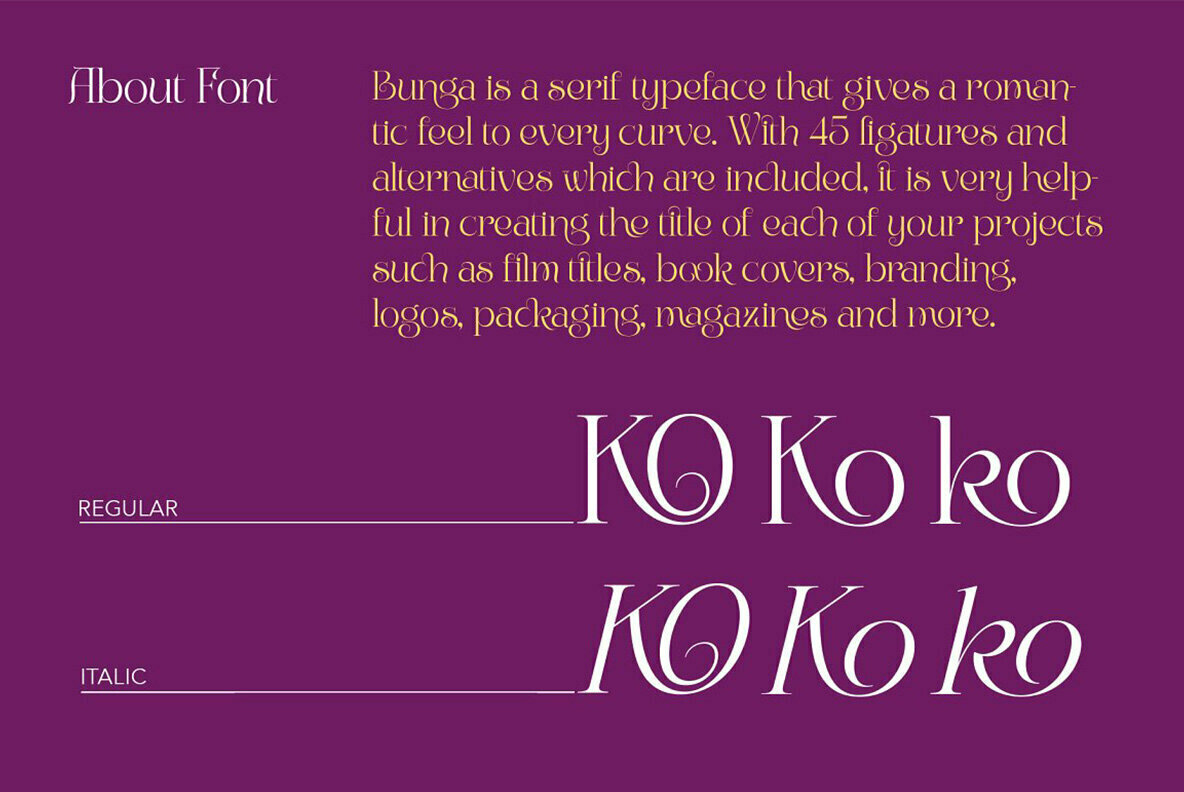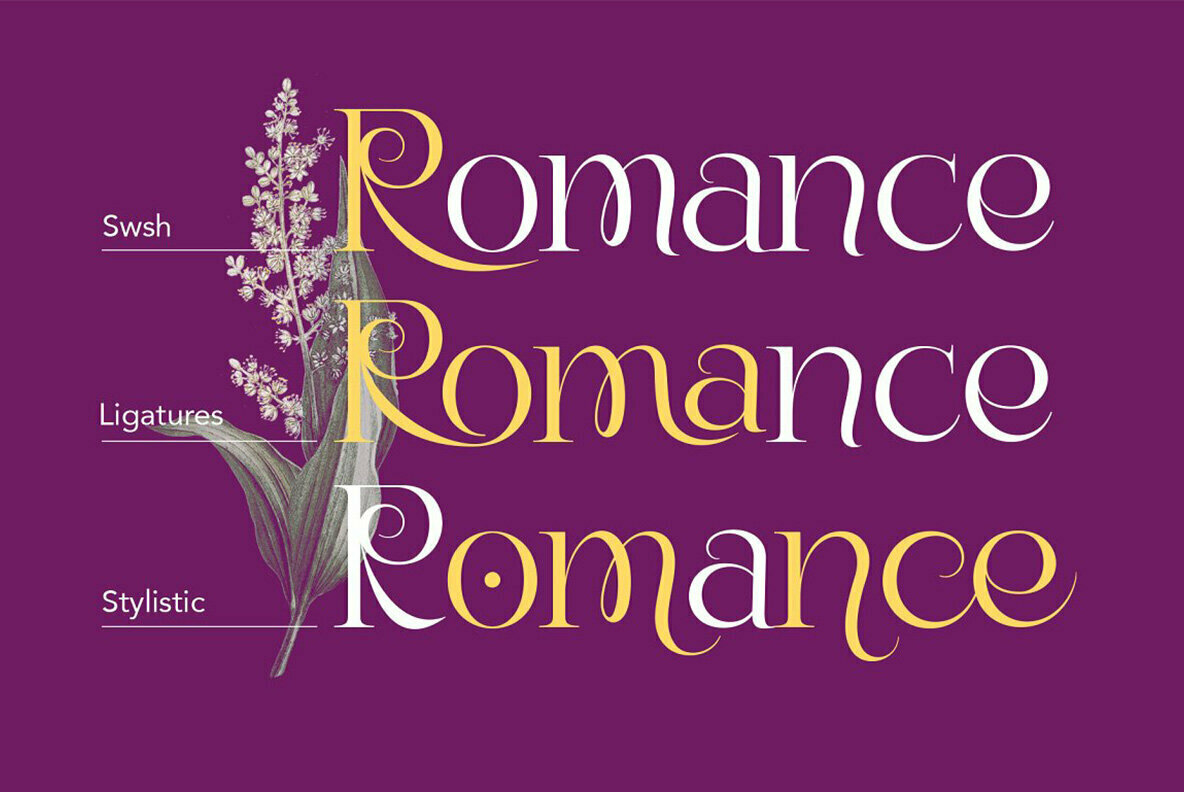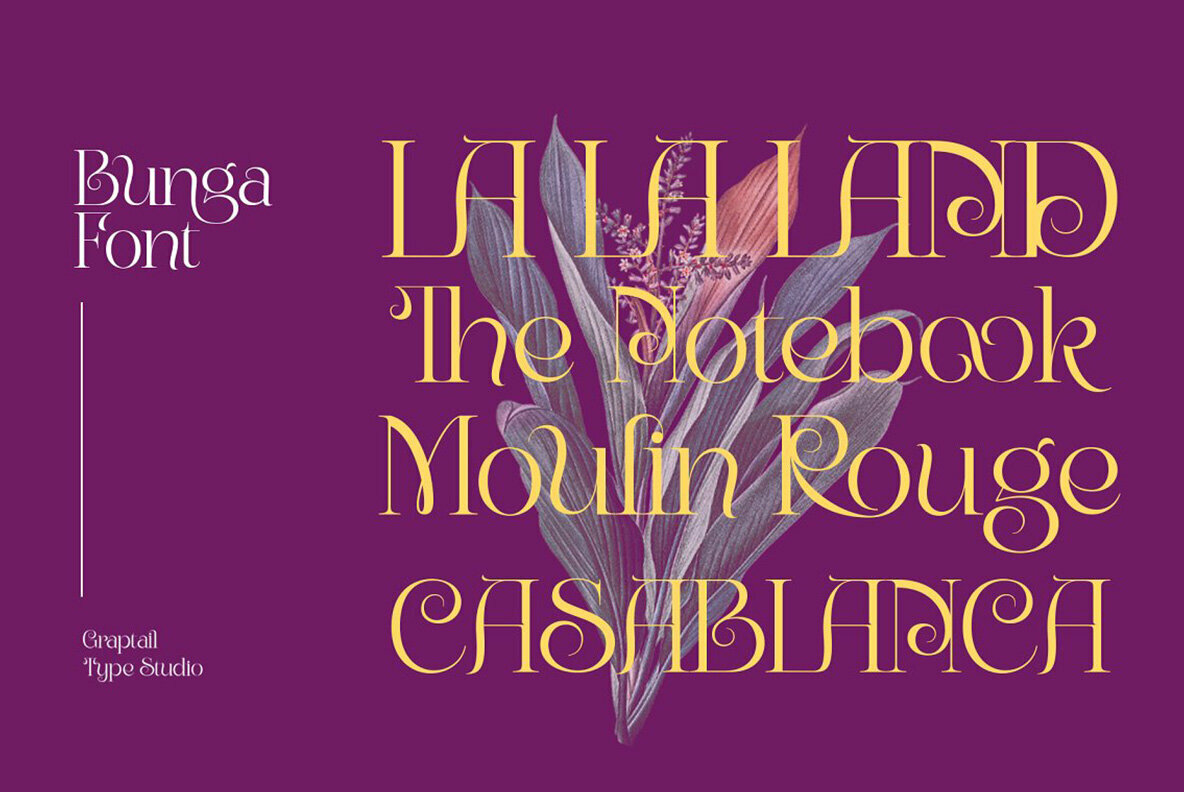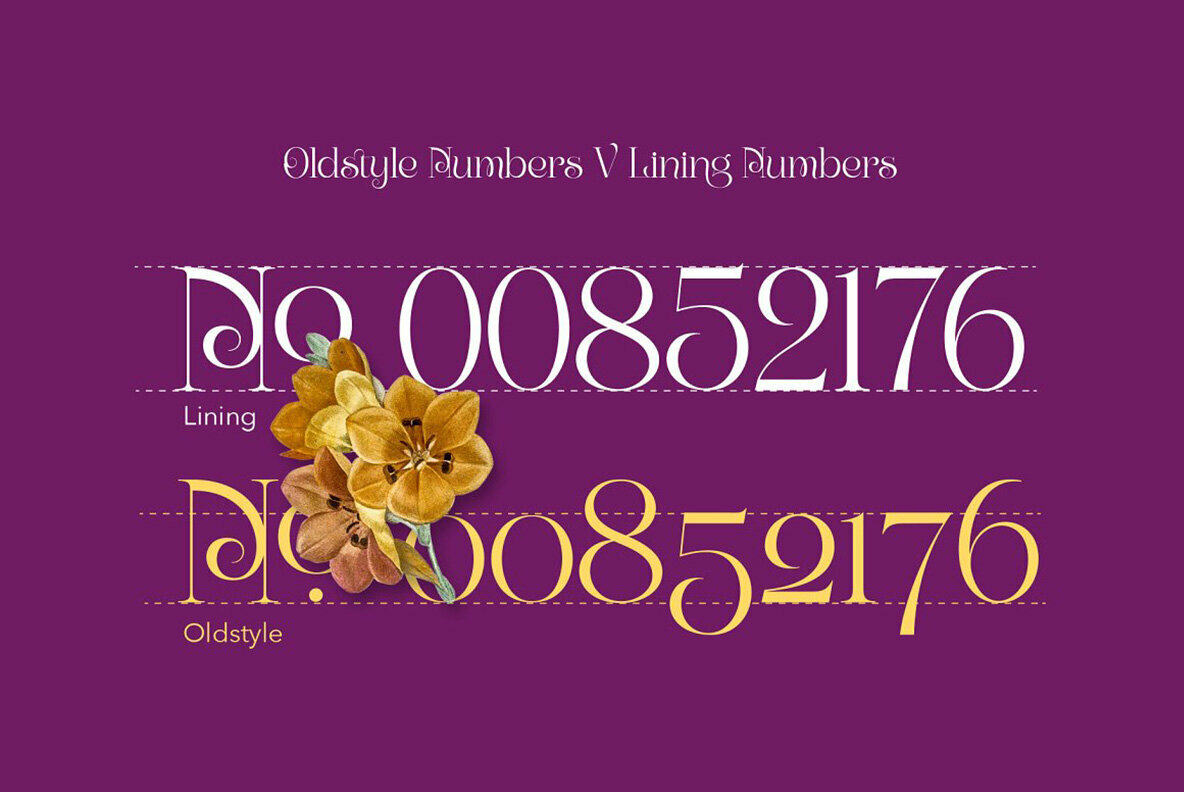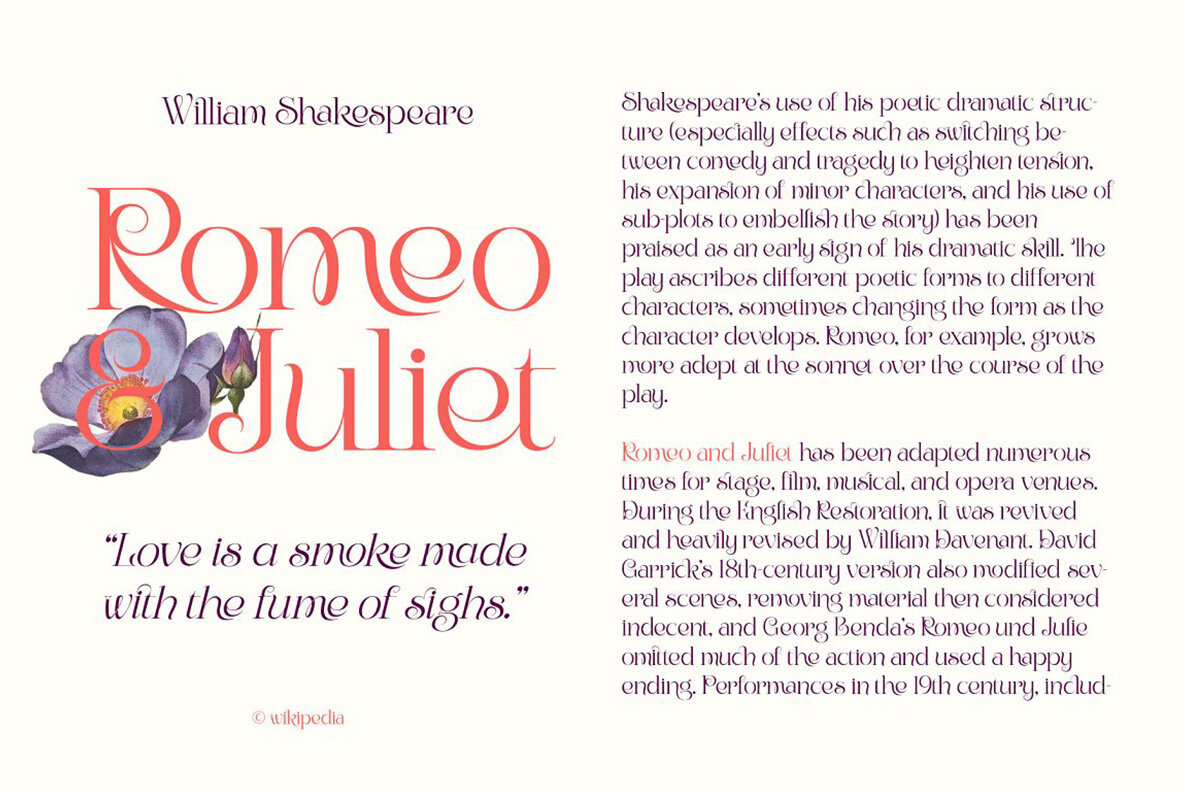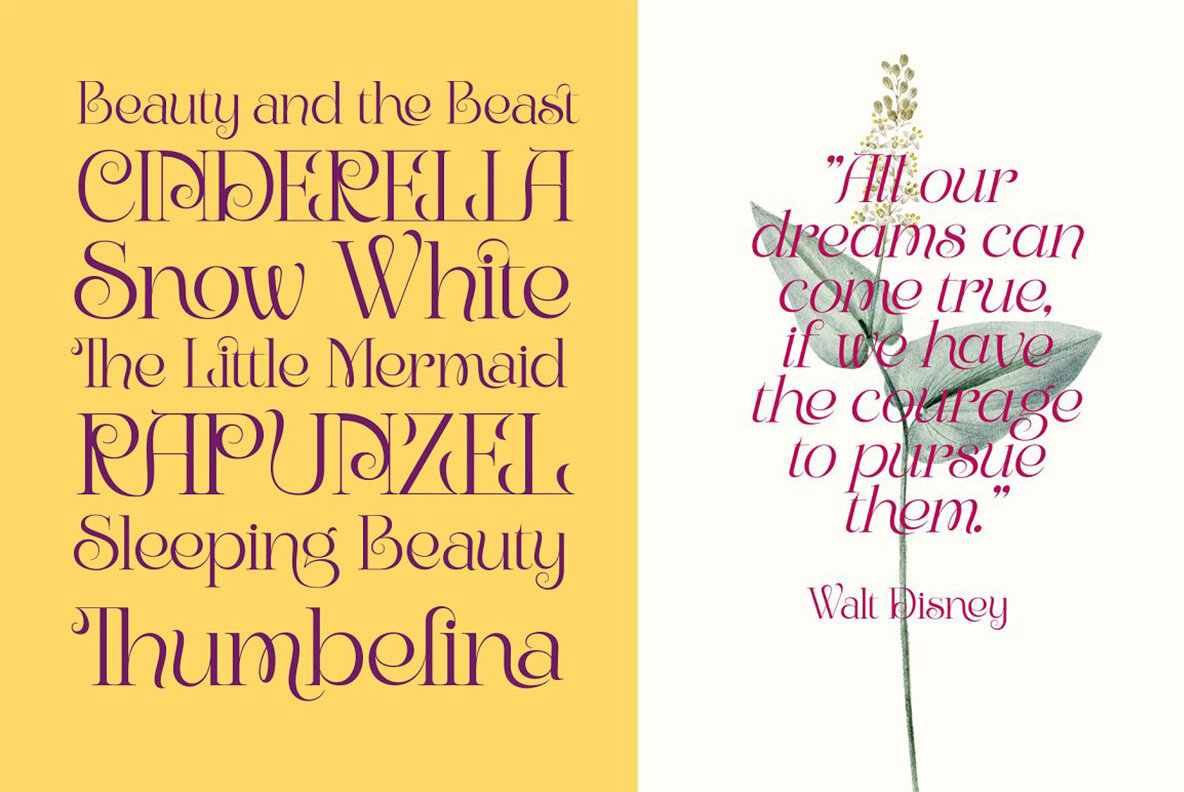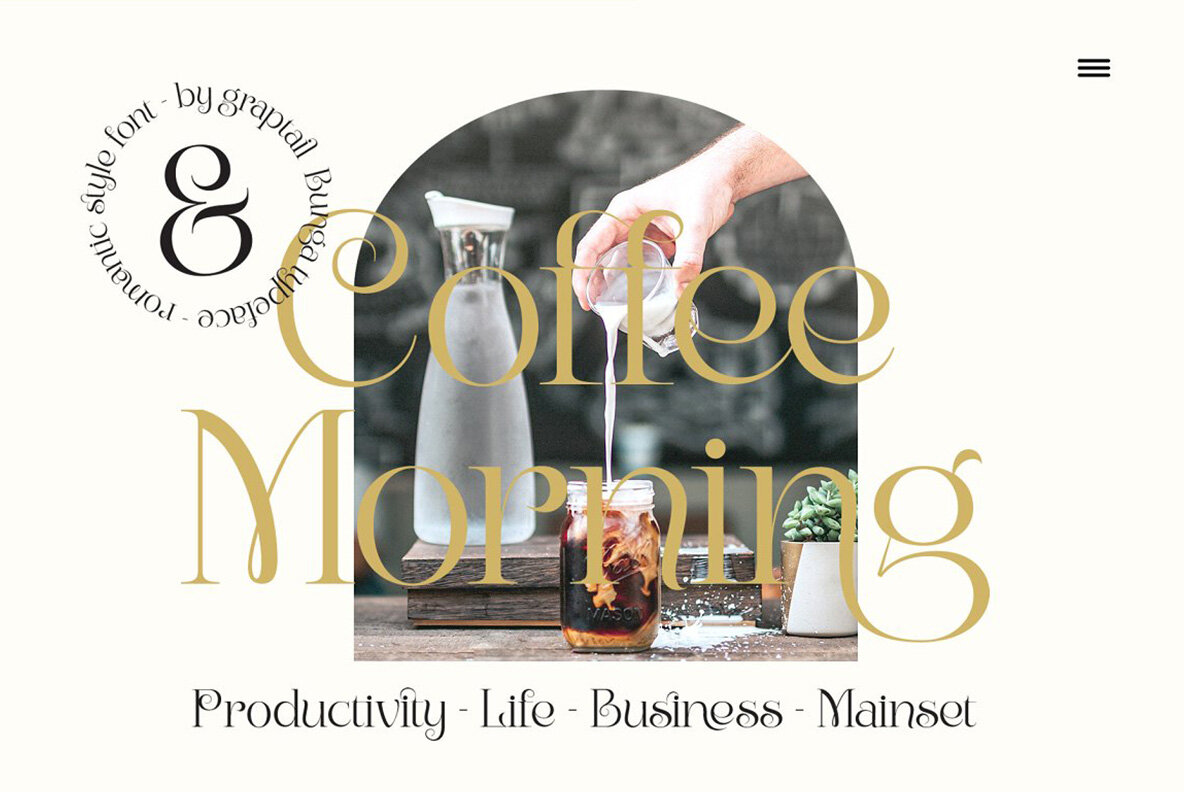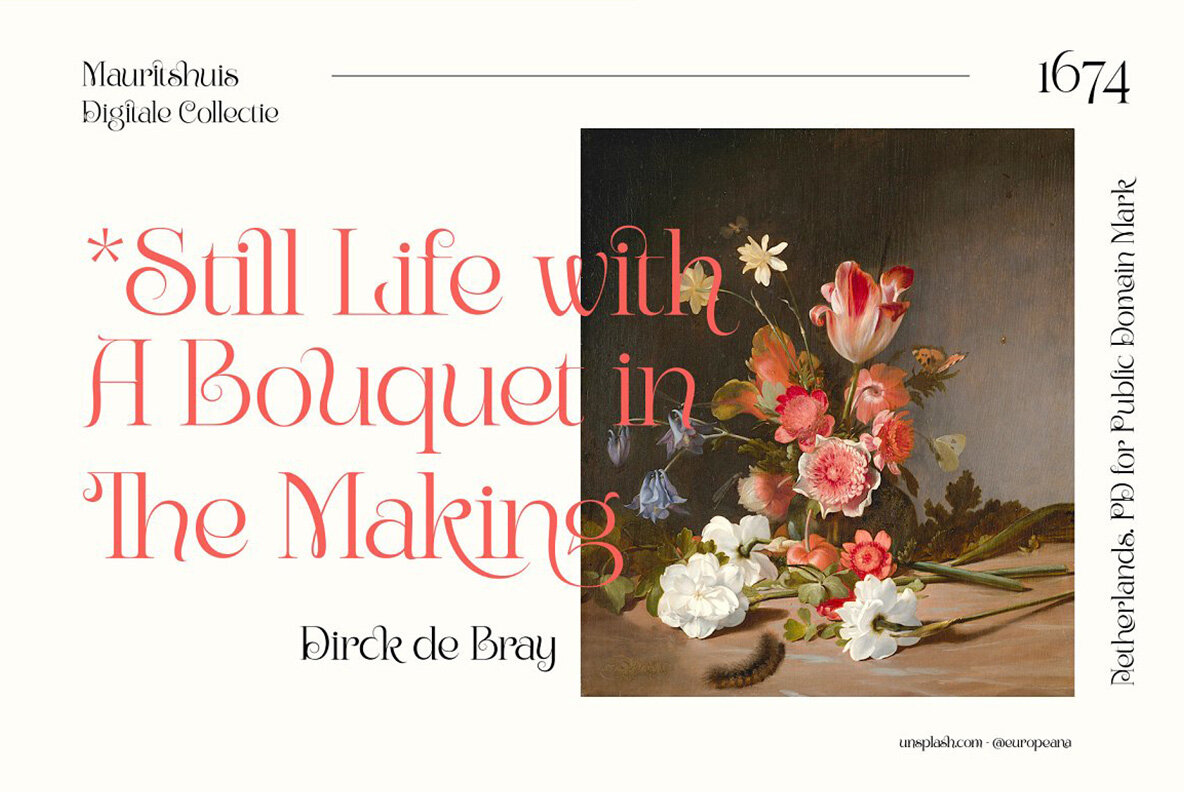
Bunga Font
Bunga is a serif typeface that gives a romantic feel to every curve. With 45 ligatures and alternates which are included, it is very helpful in creating the title of each of your projects such as film titles, book covers, branding, logos, packaging, magazines and more.
- Swash
- Standard Ligatures
- Discretionary Ligatures
- Stylistic Alternates
- Stylistic Set (ss01)
- All Alternates
Graptail is an individual font maker. Working at home creates graphic design and typography works. Learning self-taught graphic and typography design by incorporating each of the surrounding writings into a new original font work from their own thoughts like script fonts and display fonts.